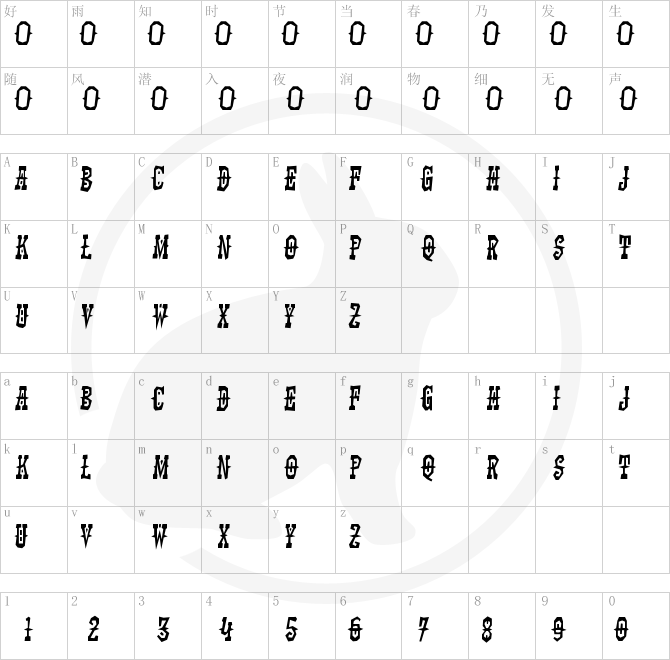
- Font Name:Kadonk
Kadonk-Regular.ttf is a very beautiful artistic font, Kadonk-Regular.ttf is widely used in the design and printing of various books and pictures,Kadonk-Regular.ttf has a strong visual impact,Kadonk-Regular.ttf is a commonly used font in newspapers, magazines and books, and is used in posters, e-commerce Poster design, store design, logo design, font design and other fields.Kadonk-Regular.